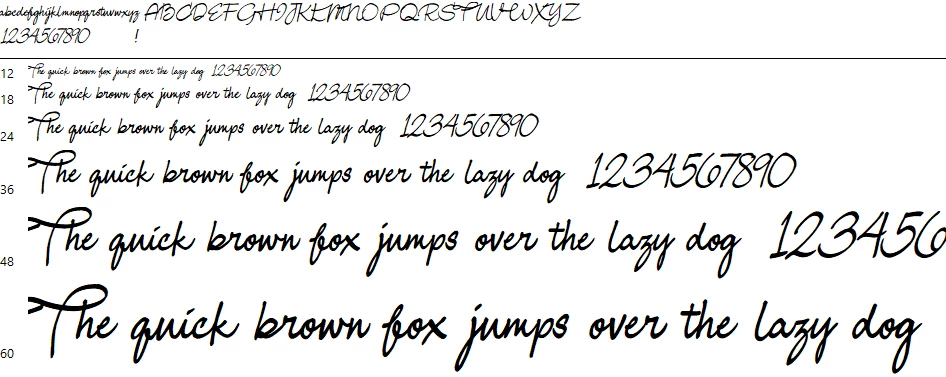
Cleverism commented, “High-quality alternative for academic resumes and for those with years’ valued at of labor experience” about this font. Laura Worthington named this for after her niece. Sher perfected this script typeface all the way for design lettering. Premiere Graphics did not follow Laura but made it in a different design. This script calligraphy font has keen features and huge language support.
| Name | Samantha |
| Style | Script, Regular |
| Author | Laura Worthington, Premiere Graphics |
| Type | Modern, Casual Script |
Samantha Font Family
- Samantha Script Upright
- Samantha Script Upright Basic
- Samantha Script Upright Select
- Samantha Script Italic
- Samantha Script Italic Basic
- Samantha Script Italic Select
- Samantha Script Bold Upright
- Samantha Script Bold Upright Basic
- Samantha Script Bold Italic
- Samantha Script Bold Italic Basic
- Samantha Script Upright Swash
- Samantha Script Italic Swash
- Samantha Script Bold Upright Swash
- Samantha Script Bold Italic Swash
- Samantha Script Bold Catch Words
- Samantha Script Bold Ornaments
- Samantha Script Catch Words
- Samantha Script Ornaments
What type of font is Samantha?
Ans: Samantha is a regular script font. Beautifully designed and amazing for handwritten text.